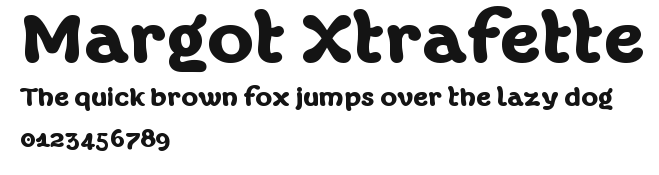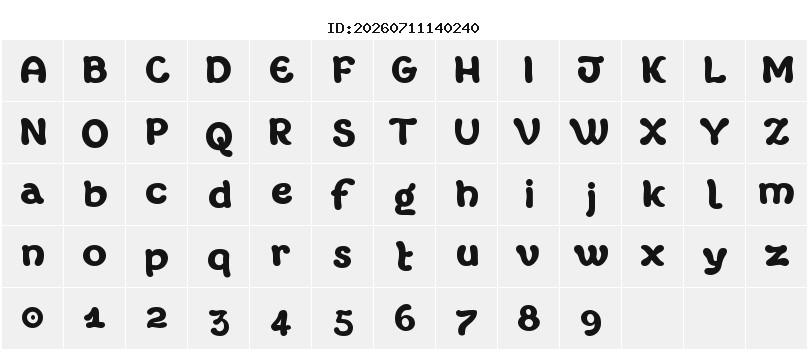
Margot Xtrafette Preview
• Font Name: Margot Xtrafette
• Full Font Name: Margot Xtrafette
• Version: Version 1.00 February 3, 2013, initial release
• Designer: Lauren Thompson
• Description: :D
About Margot Xtrafette.ttf
Margot Xtrafette.ttf is a modern, elegant sans-serif font designed for ultimate readability and visual harmony. Perfect for branding, headlines, web design, and print materials.